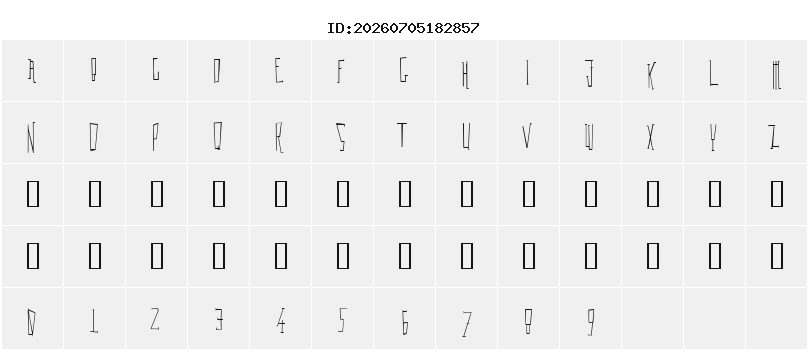
Doctor Deth Preview
• Font Name: Doctor Deth
• Full Font Name: Doctor Deth
About Doctor Deth.ttf
Doctor Deth.ttf is a modern, elegant sans-serif font designed for ultimate readability and visual harmony. Perfect for branding, headlines, web design, and print materials.